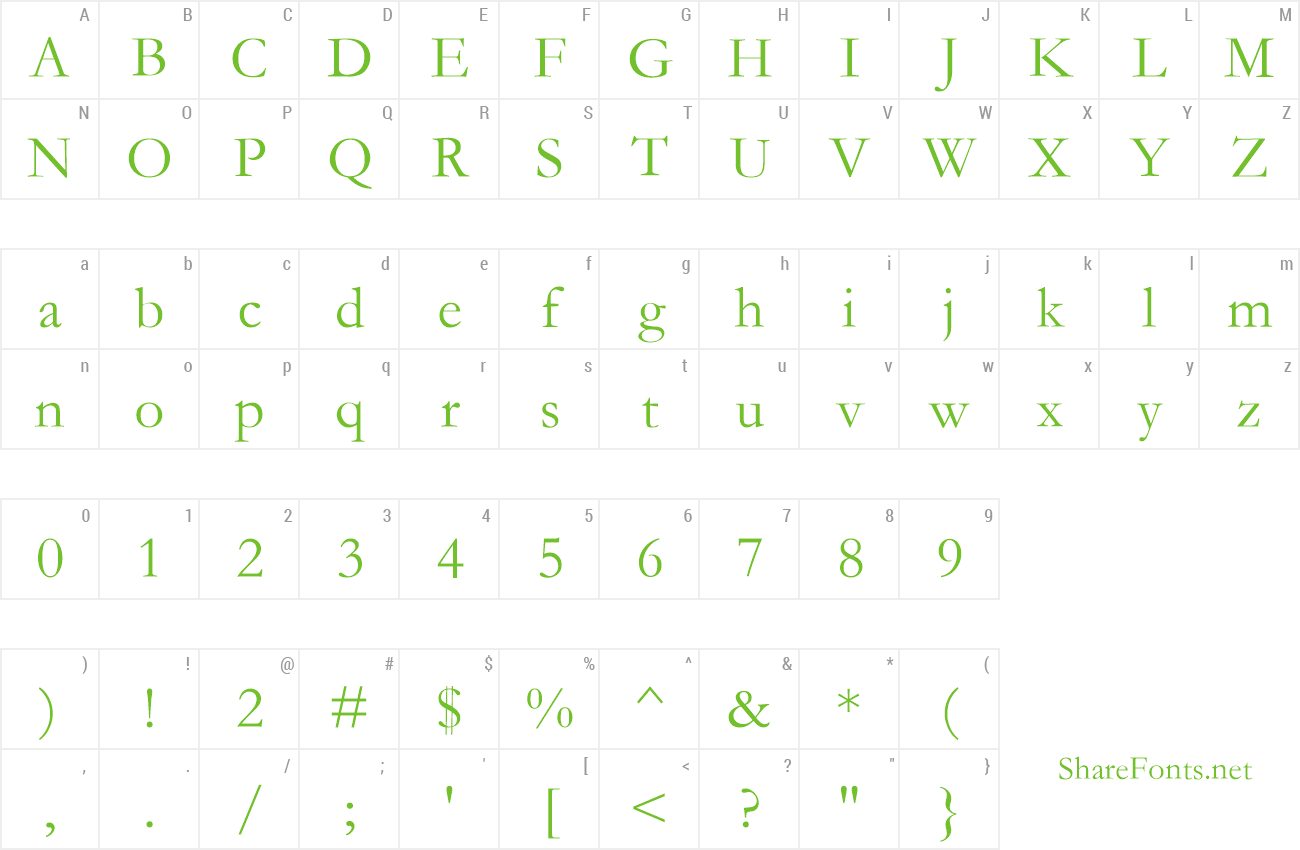
Stsong Light Font
Stsong Light Font - Web explore adobe song available at adobe fonts. Web stsong font free download. Stsong (华文宋体) was released in 1991, making it the first postscript font by a chinese foundry. See how to download stsong for free! A great choice for highlighting your design elements. Web stsong light free font. A typeface with 1 style, available from adobe fonts for sync and web use.
Web explore adobe song available at adobe fonts. See how to download stsong for free! A typeface with 1 style, available from adobe fonts for sync and web use. Stsong (华文宋体) was released in 1991, making it the first postscript font by a chinese foundry. Web stsong font free download. Web stsong light free font. A great choice for highlighting your design elements.
See how to download stsong for free! Web explore adobe song available at adobe fonts. A typeface with 1 style, available from adobe fonts for sync and web use. Stsong (华文宋体) was released in 1991, making it the first postscript font by a chinese foundry. Web stsong font free download. Web stsong light free font. A great choice for highlighting your design elements.
Web explore adobe song available at adobe fonts. See how to download stsong for free! Web stsong light free font. Stsong (华文宋体) was released in 1991, making it the first postscript font by a chinese foundry. A typeface with 1 style, available from adobe fonts for sync and web use.
Stsong (华文宋体) was released in 1991, making it the first postscript font by a chinese foundry. Web explore adobe song available at adobe fonts. See how to download stsong for free! Web stsong font free download. A typeface with 1 style, available from adobe fonts for sync and web use.
See how to download stsong for free! A great choice for highlighting your design elements. Web explore adobe song available at adobe fonts. A typeface with 1 style, available from adobe fonts for sync and web use. Stsong (华文宋体) was released in 1991, making it the first postscript font by a chinese foundry.
Web stsong light free font. Web explore adobe song available at adobe fonts. Stsong (华文宋体) was released in 1991, making it the first postscript font by a chinese foundry. A great choice for highlighting your design elements. Web stsong font free download.
A typeface with 1 style, available from adobe fonts for sync and web use. Web stsong light free font. Stsong (华文宋体) was released in 1991, making it the first postscript font by a chinese foundry. Web explore adobe song available at adobe fonts. See how to download stsong for free!
A typeface with 1 style, available from adobe fonts for sync and web use. Web stsong light free font. See how to download stsong for free! A great choice for highlighting your design elements. Stsong (华文宋体) was released in 1991, making it the first postscript font by a chinese foundry.
Web stsong light free font. A great choice for highlighting your design elements. Stsong (华文宋体) was released in 1991, making it the first postscript font by a chinese foundry. See how to download stsong for free! A typeface with 1 style, available from adobe fonts for sync and web use.
Web stsong light free font. A great choice for highlighting your design elements. Stsong (华文宋体) was released in 1991, making it the first postscript font by a chinese foundry. Web stsong font free download.